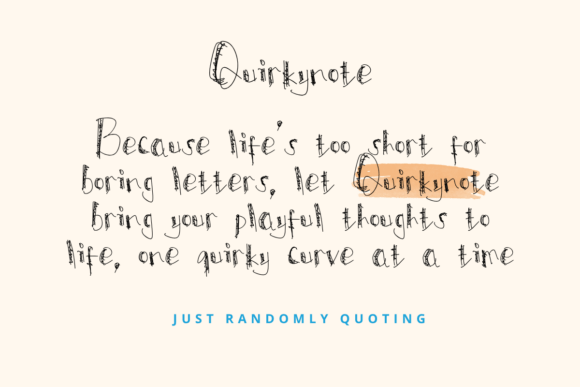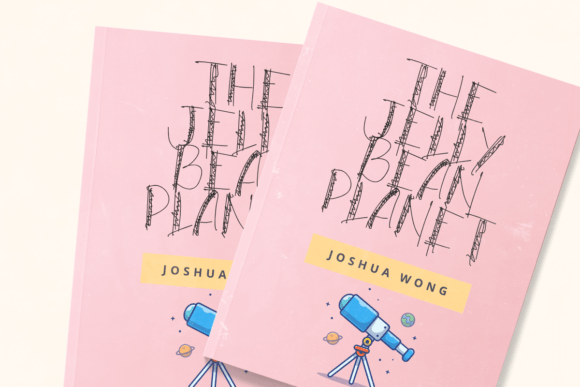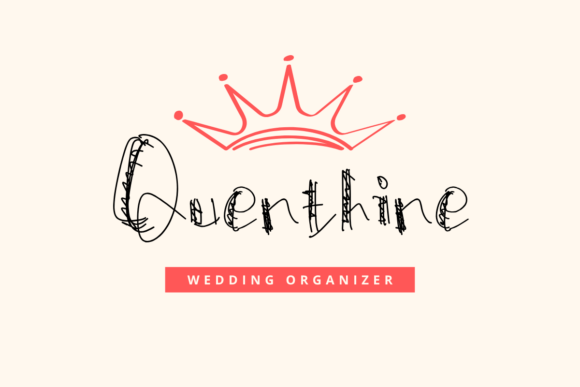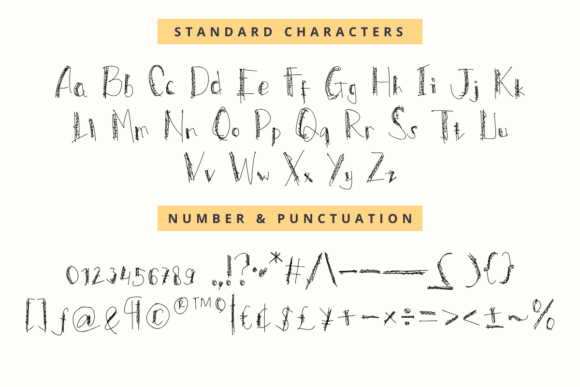
Introduction to Quirkynote Font
Do you ever find yourself scribbling notes in the margins of your sketchbook, letting your pen wander across the page in a dance of creativity? That’s where Quirkynote Font comes in – a design resource born from the spontaneity of those raw, hand-drawn expressions.
As a designer, you’re always on the lookout for that special something to elevate your creative project. Quirkynote Font delivers high-quality, free downloads with transparent backgrounds, making it easy to integrate into your designs. Its unique, scratchy lines and playful imperfections add a touch of bold personality to any project, whether you’re working on a zine, indie poster, or experimental branding.
Key Features of Quirkynote Font
- Designed with a unique, quirky aesthetic ideal for modern designs and branding
- Includes a range of characters, including uppercase and lowercase letters, numbers, and symbols
Honest Review: Quirkynote Font
As a designer, I’m always on the lookout for high-quality design resources that can elevate my creative projects. The Quirkynote Font is one such resource that caught my attention. I downloaded it for free, and I was excited to see how it would work in my design.
However, there are a few limitations to consider: ⚠️ The font may not be suitable for all types of designs, particularly those that require a more formal or traditional look. ⚠️ The font may not be as versatile as some other fonts, particularly when it comes to pairing it with other fonts.
Overall, I think the Quirkynote Font is a great addition to any designer’s toolkit. While it may have its limitations, it’s a high-quality resource that can add a unique touch to creative projects. I’d definitely recommend it to designers who are looking for something a little different.
- Unique and quirky design
- May not be suitable for formal or traditional designs
- May not be as versatile as other fonts
Tips for Getting the Most Out of Quirkynote Font
Here are some tips for getting the most out of Quirkynote Font:
- Experiment with different font sizes and styles to create unique designs.
- Combine Quirkynote Font with other design elements, such as graphics and images, to create visually appealing designs.
Quirkynote Font is suitable for a variety of creative projects, including:
- Designing logos and branding materials.
- Creating social media graphics and ads.
- Designing presentations and documents.